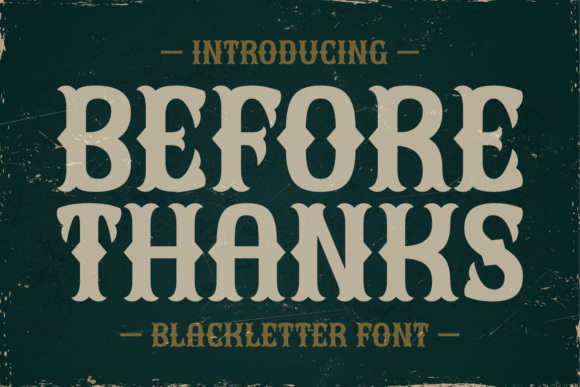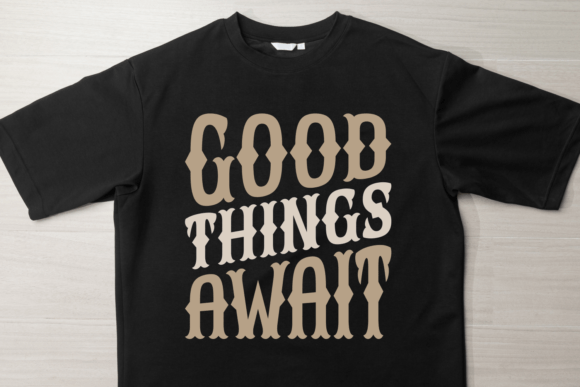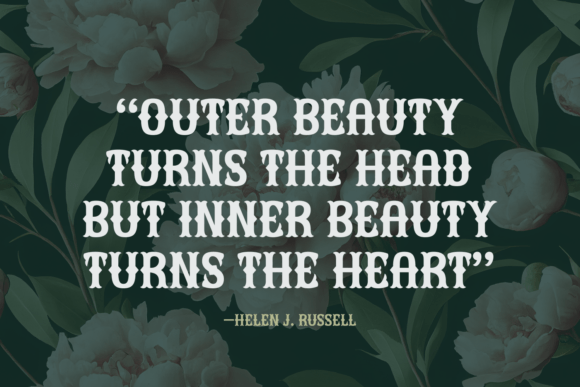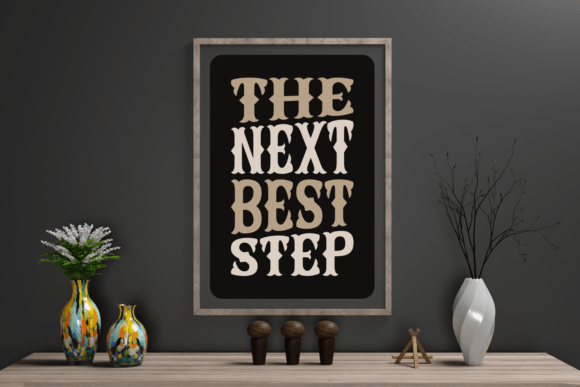
The Perfect Font for a Heartfelt Touch
There’s nothing quite like the feeling of creating something from scratch, and as designers, we know that the right font can make all the difference. Whether it’s a custom logo for a new business or a handmade card for a loved one, the perfect font can add that special something that makes your design truly stand out.
Before Thanks Font is a beautiful example of a font that can do just that. With its thick, charming blackletter design and flared swashes, this font is an ideal choice for adding a touch of personality to your designs. From branding and logos to signage and t-shirts, Before Thanks Font is a versatile choice that’s sure to make a lasting impression.
Before Thanks Font Key Features
- Font Family: Before Thanks Font is a unique, hand-drawn font designed specifically for expressing gratitude and appreciation. It comes in a single font family.
- Character Set: The font includes a wide range of characters, including uppercase and lowercase letters, numbers, punctuation marks, and special characters, making it suitable for various types of designs.
- Unique Characteristics: Before Thanks Font features a distinctive, hand-drawn style with varying line widths, giving it a personal and emotive feel. The font is designed to convey a sense of warmth and appreciation.
Before Thanks Font Review
- The Before Thanks Font has a unique, elegant design that’s perfect for creating a warm and inviting atmosphere. It’s ideal for use in titles, headings, and body text where you want to convey a sense of gratitude and appreciation.
- The font is highly legible, even at smaller sizes, making it a great choice for digital and print media.
- The font family includes a range of weights and styles, allowing you to customize your design to suit your needs.
- The Before Thanks Font is a display font, which means it’s not suitable for extended body text. It’s best used in small doses to add visual interest to your design.
- The font may not be suitable for use in smaller font sizes, as it can become difficult to read.
- The font family is relatively small, with only a few weights and styles available.
The Before Thanks Font is a beautiful, elegant font that’s perfect for adding a touch of sophistication to your designs. While it may have some limitations, it’s a great choice for titles, headings, and body text where you want to convey a sense of gratitude and appreciation.
Tips for Getting the Most Out of Before Thanks Font
Before Thanks Font is a beautiful, elegant script font that’s perfect for adding a touch of sophistication to your designs. To get the most out of it, use it for titles, headings, and other prominent text elements. You can also pair it with other fonts to create a unique and eye-catching design.
Before Thanks Font is perfect for a variety of use cases, including: wedding invitations, baby showers, birthday parties, and other special occasions. It’s also great for creating beautiful quotes, posters, and social media graphics.